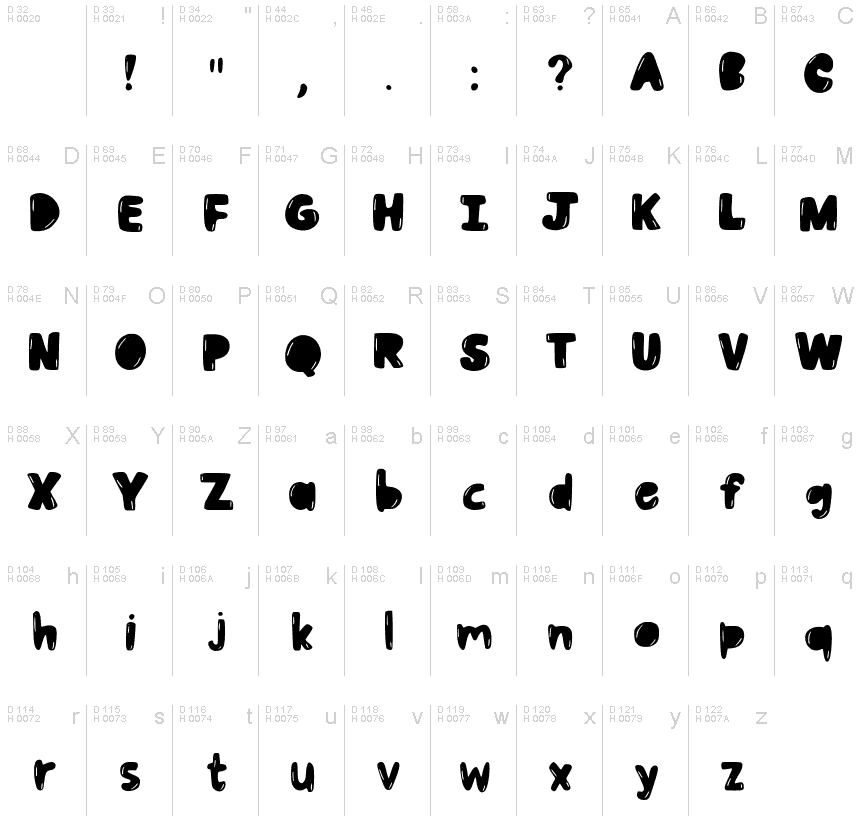
Bubblebystarbrillitos Regular
Bubble by Star Brillitos is a bold, cartoon-style display font designed by Sofia While. This eye-catching font is perfect for creating fun and playful projects, from children's books to social media graphics.